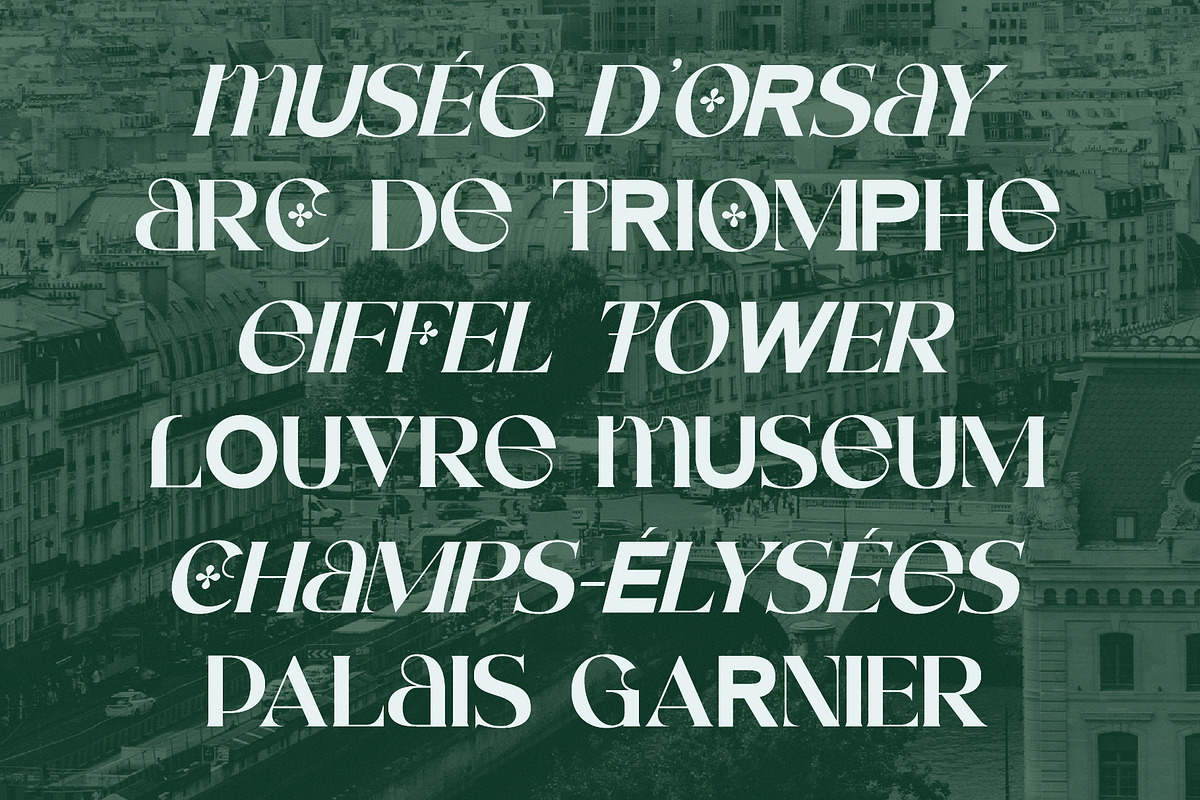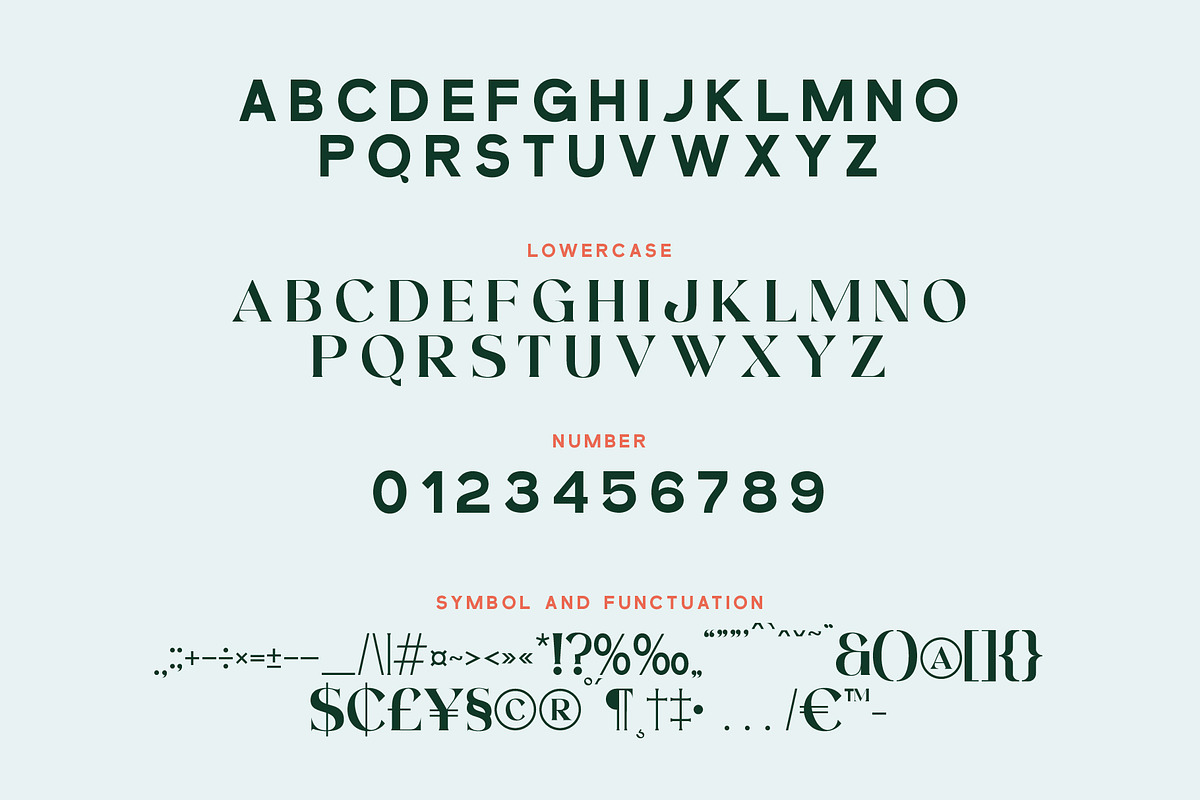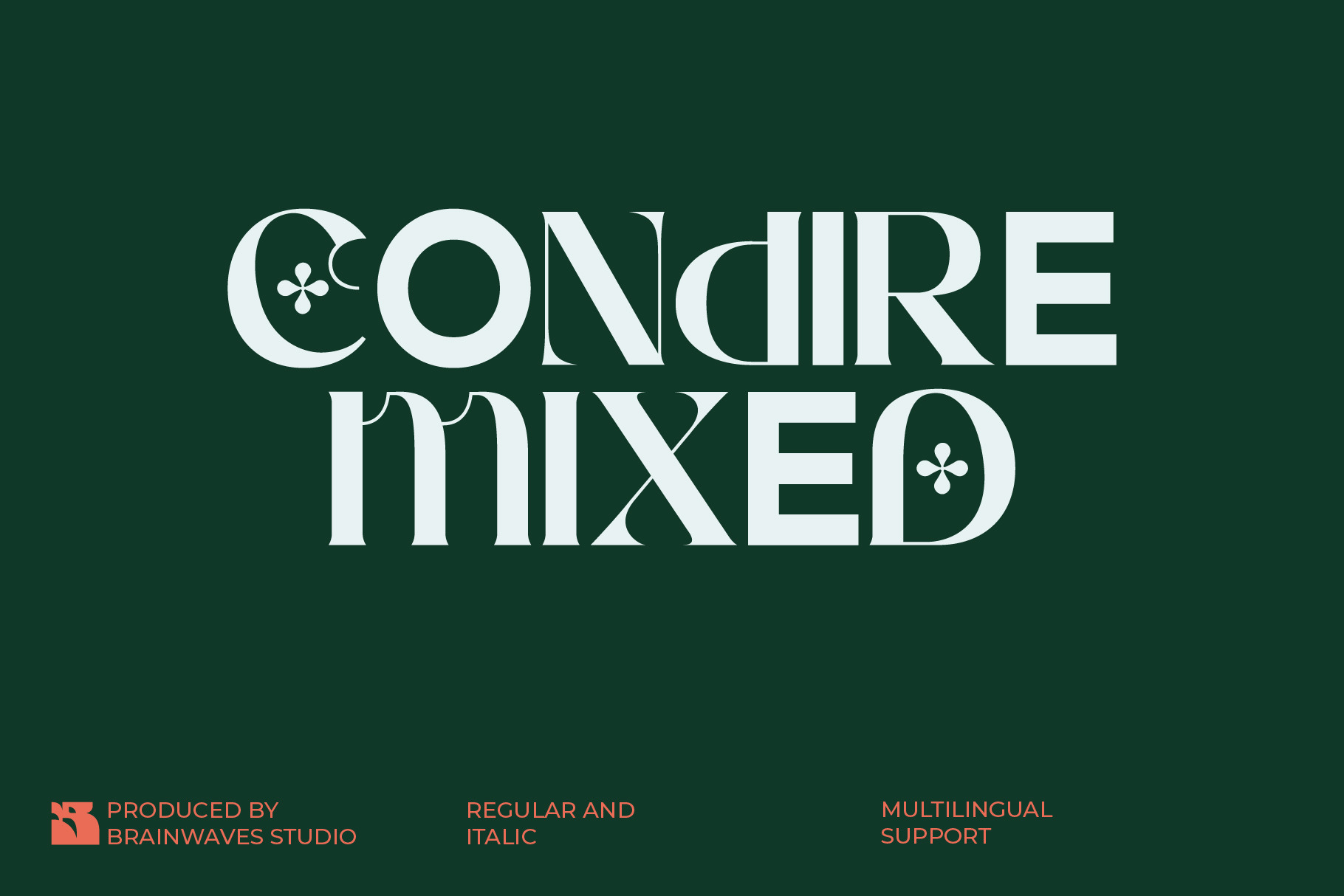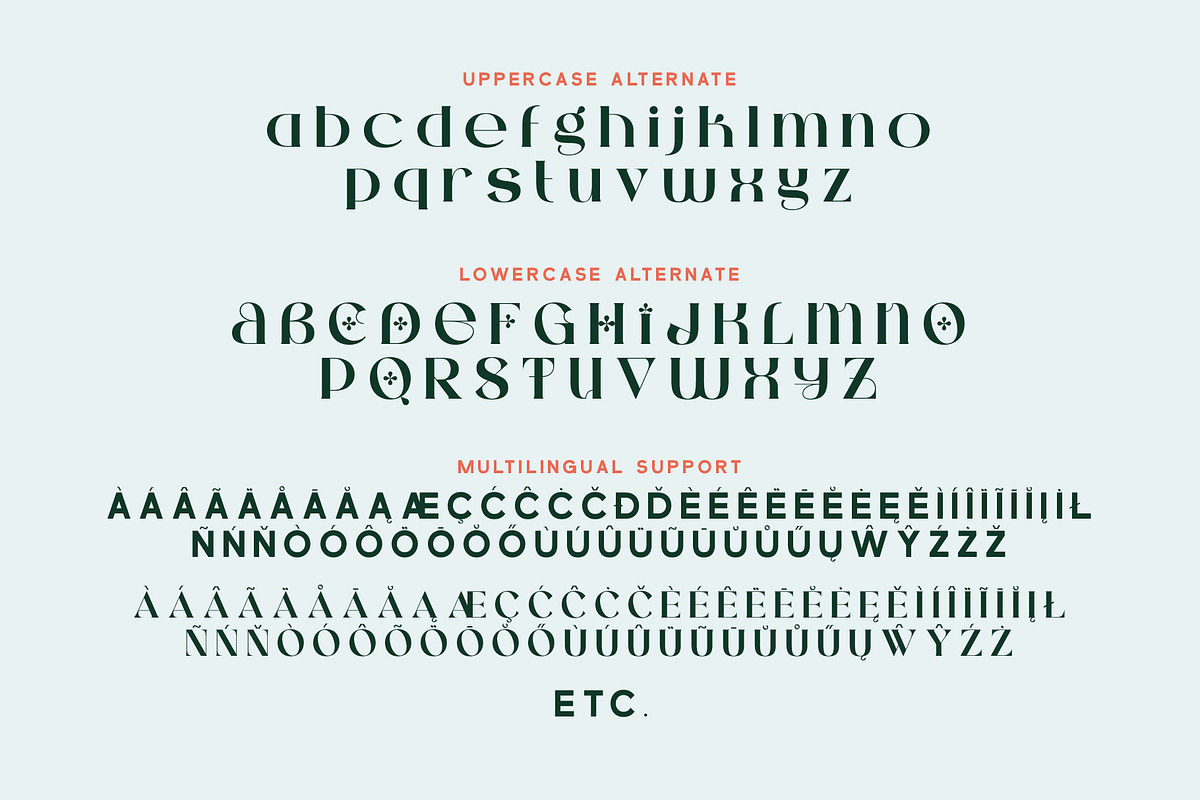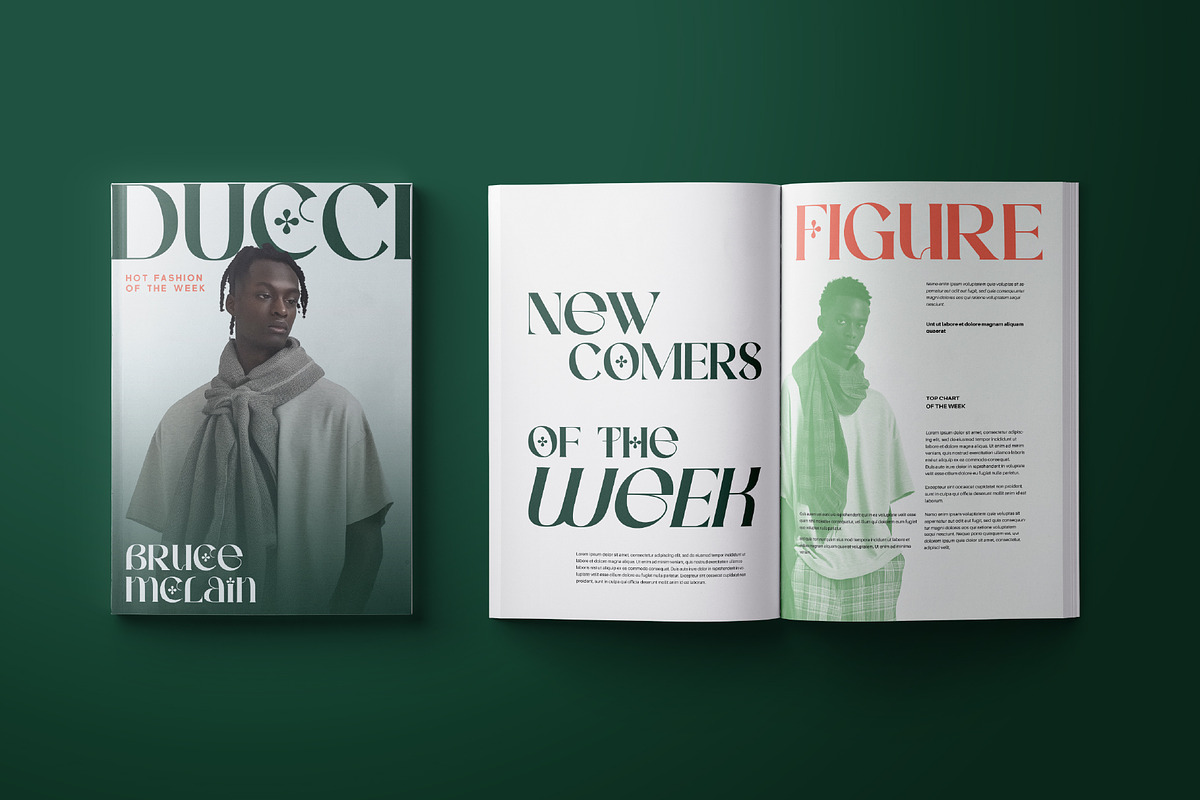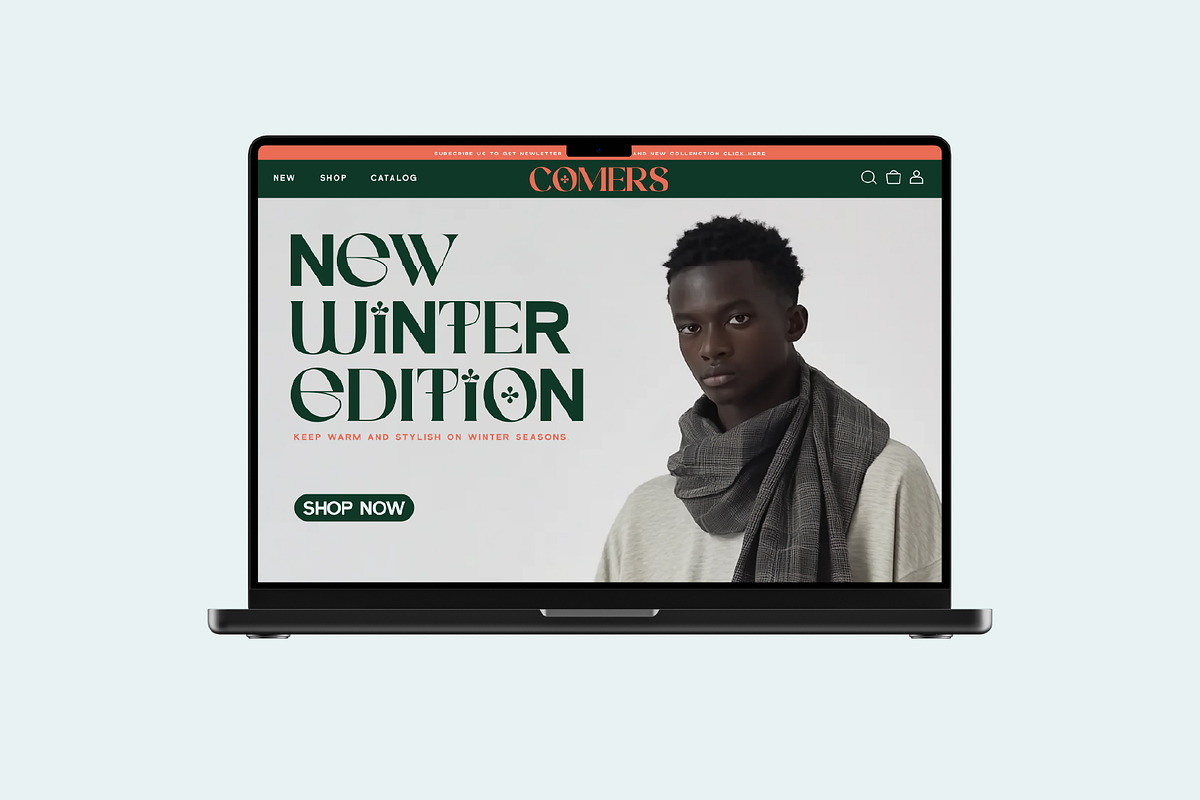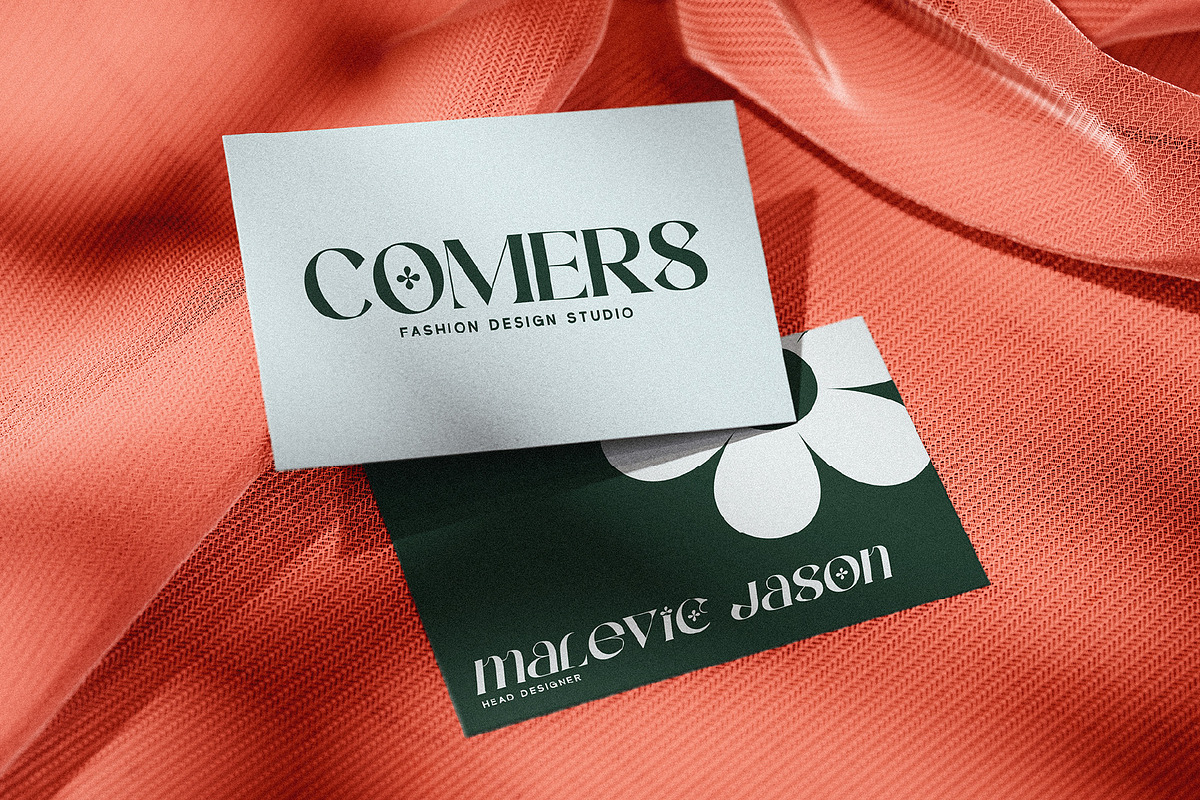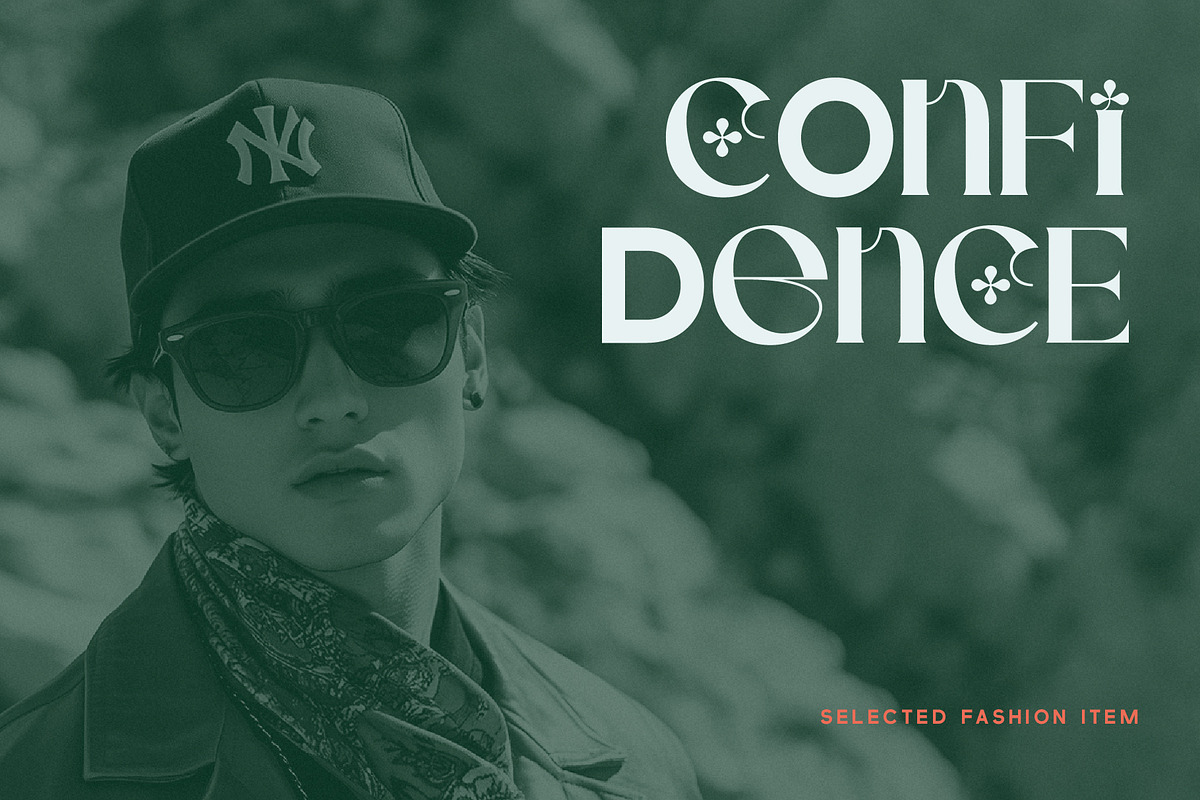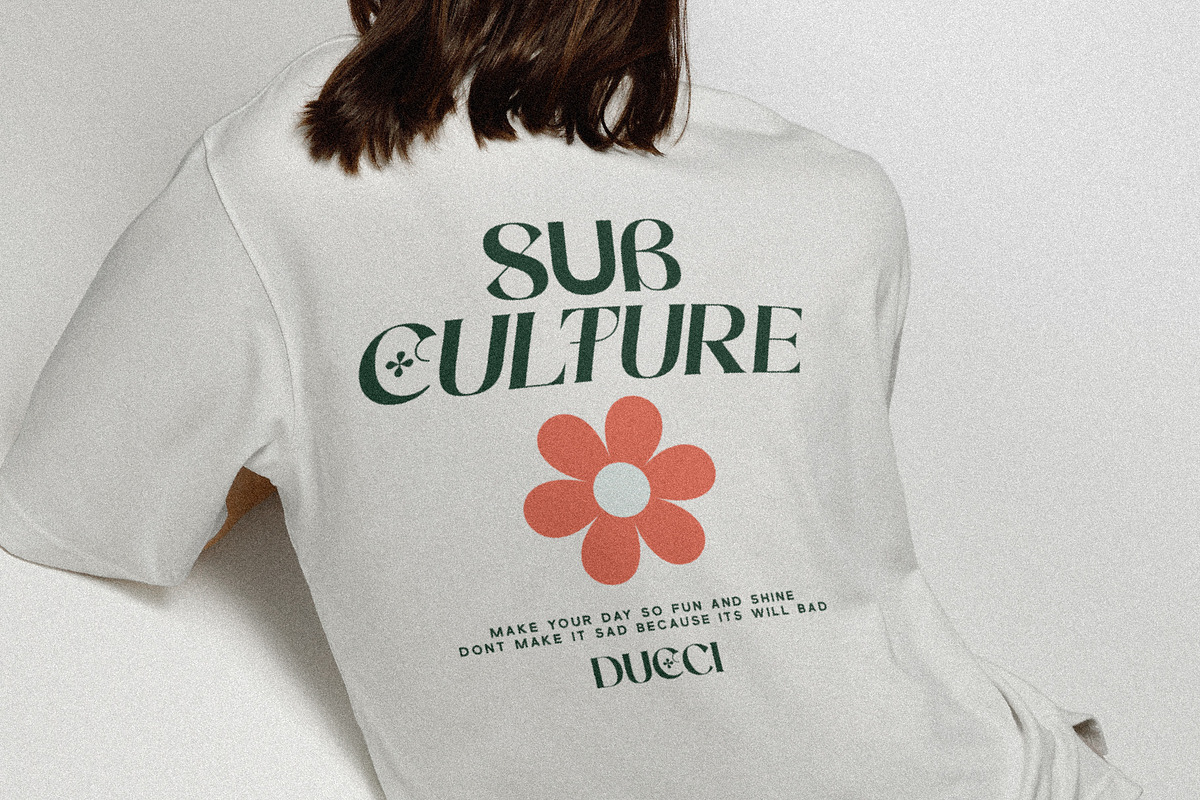
Condire Mixed – Display Font
Step into elegance with Condire Mixed, a modern display font that redefines sophistication through its eclectic mix of stylistic cuts and artistic glyphs. Designed for the bold yet refined, Condire Mixed blends sharp precision with soft detail—making it a true standout for fashion campaigns, editorial layouts, branding, and upscale product packaging.
This typeface dances between art nouveau and contemporary flair, offering alternate upper/lowercase sets, multilingual support, and both Regular and Italic styles. Whether you’re creating a Parisian-style magazine spread, luxury fashion lookbook, or a design-forward logo, Condire Mixed delivers expressive character with editorial precision.
Let your designs carry a voice of style, confidence, and intelligent rhythm—with Condire Mixed.